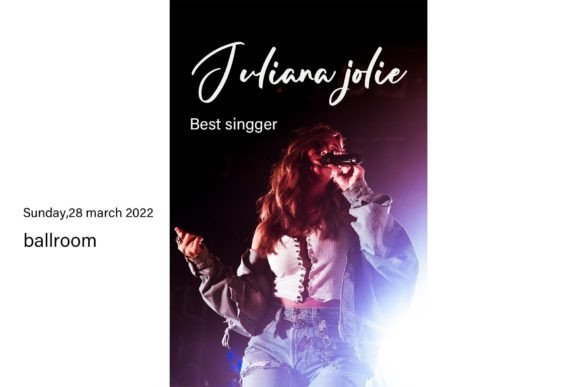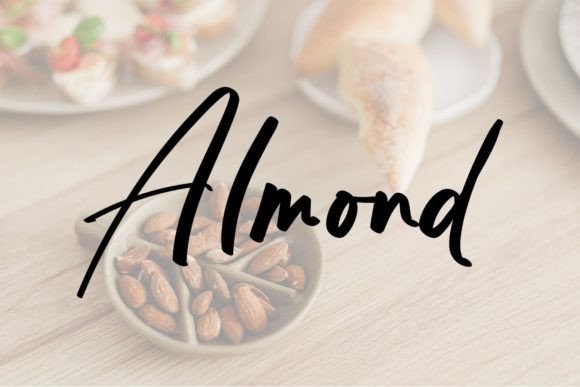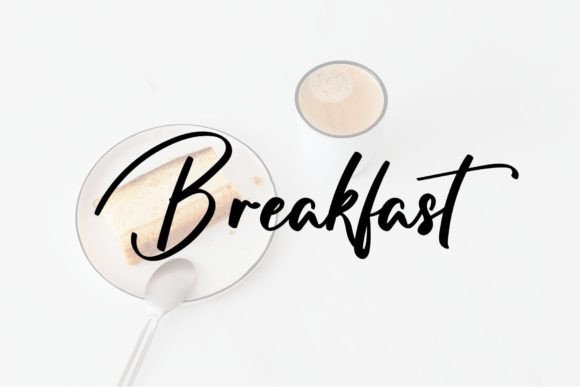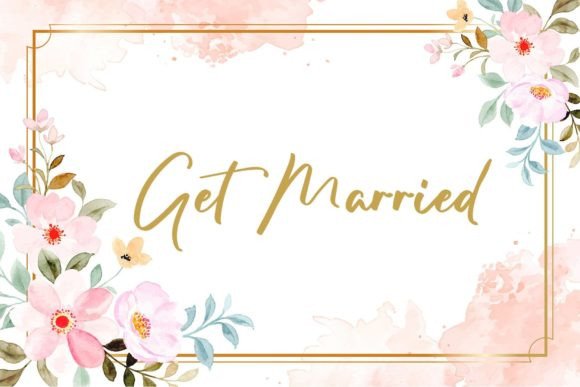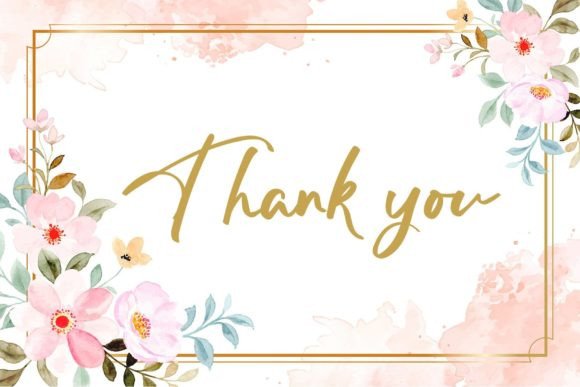
Shallow Font
About Shallow Font
Shallow is a delightful and elegant handwritten font that exudes sweetness and beauty. With characters that gracefully dance along the baseline, this font adds a touch of luxury and sophistication to any design project you wish to create.
The unique charm of Shallow lies in its flowing and decorative style. The letters appear as if they are gracefully moving, creating a sense of rhythm and elegance. This font is perfect for adding a touch of class and refinement to various creative endeavors, including wedding invitations, greeting cards, branding materials, logos, quotes, posters, and more.
Shallow’s luxurious spark enhances the visual appeal of your designs, making them stand out and leaving a lasting impression on viewers. Its handwritten quality adds a personal and intimate touch, making it an excellent choice for projects that require a sense of warmth and authenticity.
Embrace the beauty of Shallow and let its elegant and sweet nature elevate your design projects. Whether you’re creating romantic invitations, stylish branding materials, or captivating posters, Shallow brings a touch of luxury and sophistication, making your creations truly enchanting.